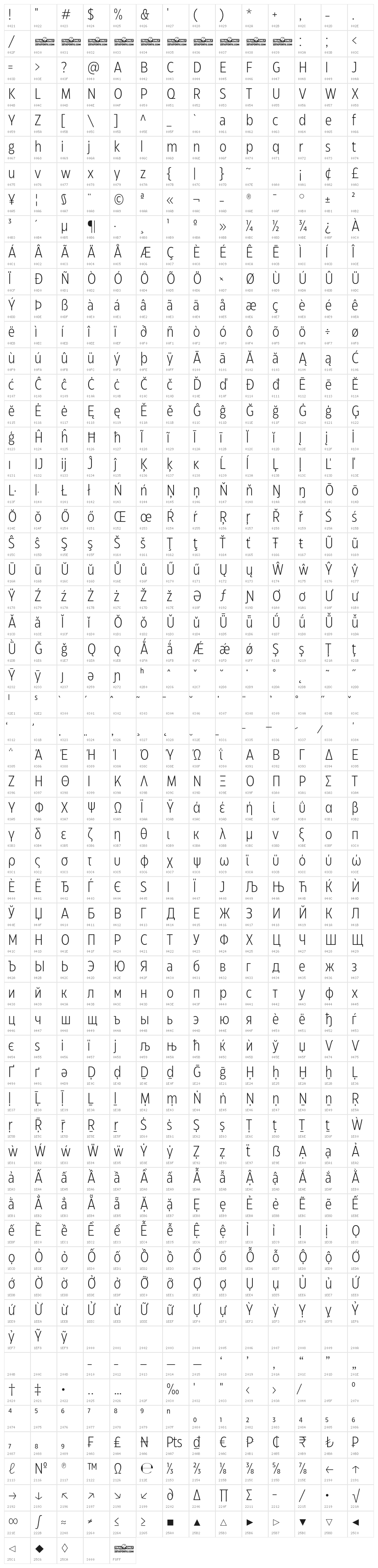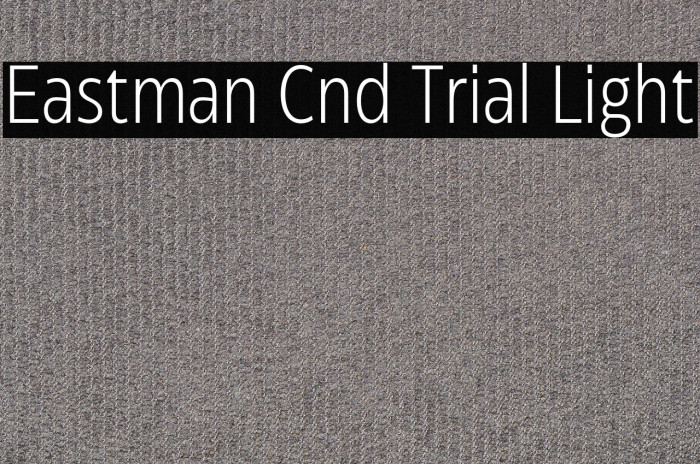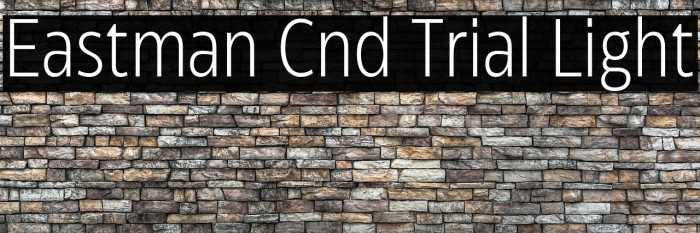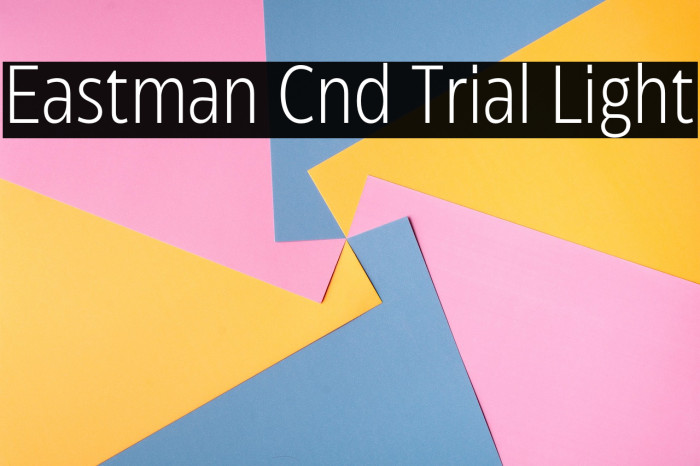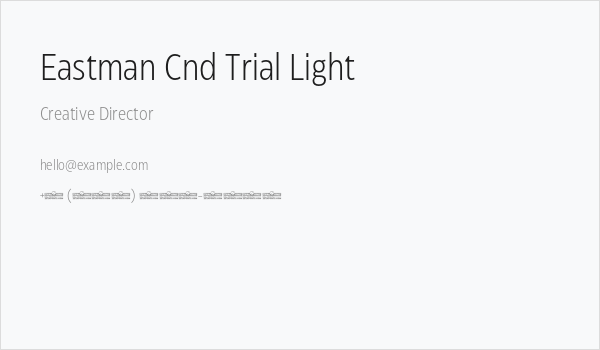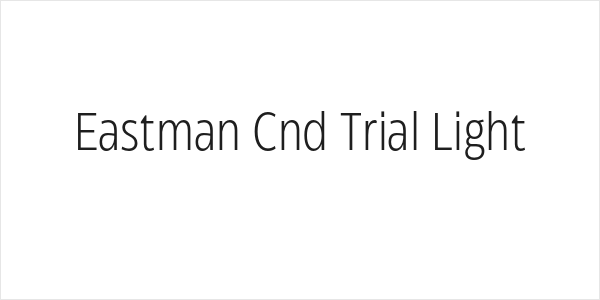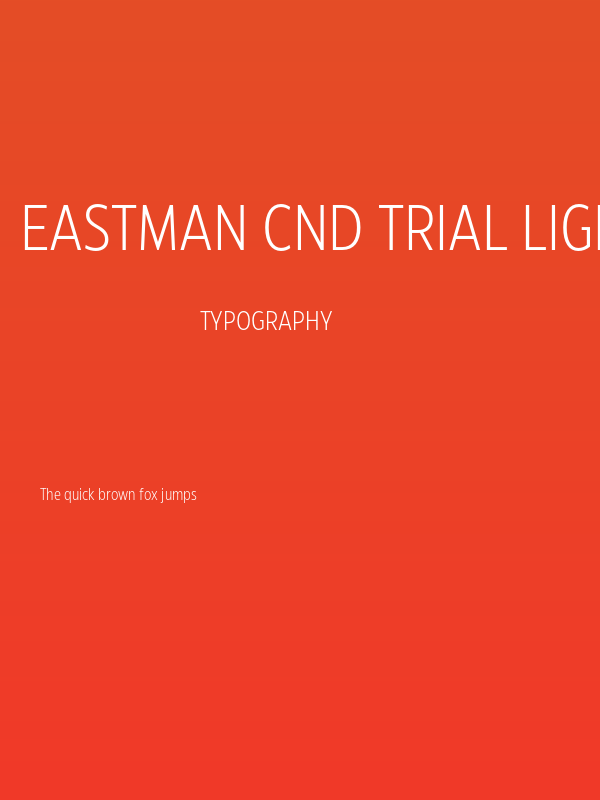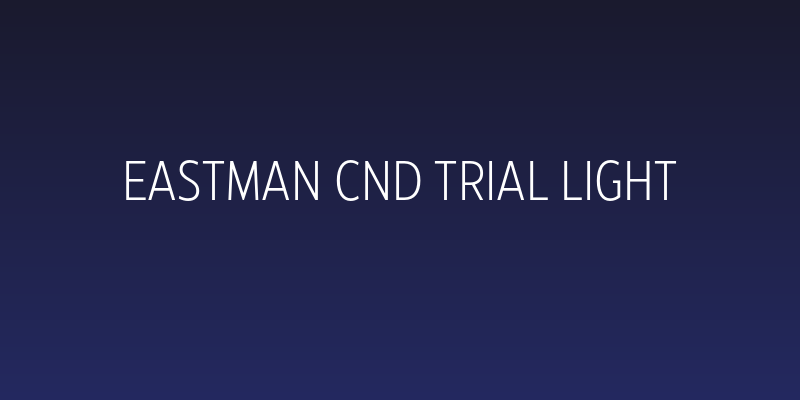
Eastman Cnd Trial Light Font
Eastman Cnd Trial Light Description
This font features a clean and modern sans-serif design with a condensed structure, making it ideal for space-saving layouts. The characters are well-defined with a uniform stroke width, providing a sleek and professional appearance. The uppercase and lowercase letters maintain a consistent height ratio, ensuring readability across various sizes. The numerals and special characters are crafted with the same attention to detail, offering versatility for different design needs. Its simplicity and clarity make it suitable for both digital and print media.
| Proposed Projects | Ideal for branding, editorial design, web design, and corporate materials. |